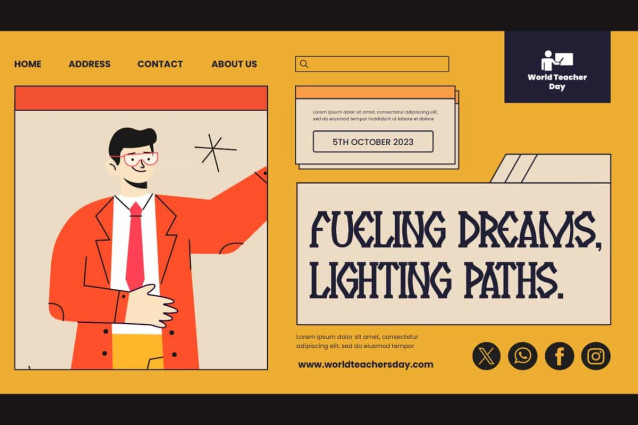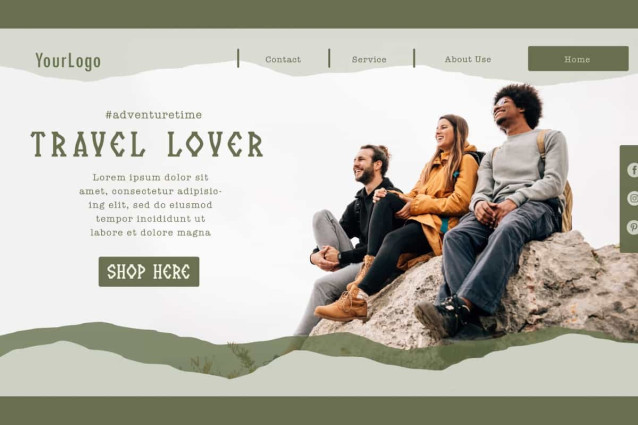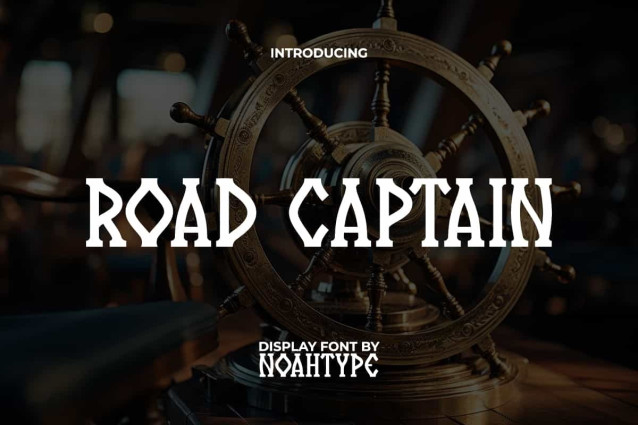
Road Captain Font
Road Captain Font is a sailor wavy ocean ship inspired font from NoahType Studio with unique and fancy characters style . The characters in this font are inspired by the pirate era, which has a very distinctive and prominent style. It will be perfect for any projects, such as label, poster, custom design, signage, invitation, brand image, stationery, cover, printing, product packaging, quotes, website, and many more!
Road Captain Font includes full set of ALL CAPS for Uppercase and Lowercase Basic Characters, Numerals, Punctuation, and Symbol. This special font will make your design standout and also a perfect choice for many industries, such as fashion, cafe, game, movie, accessories, advertising, art, cafe, event or festival, printing, publishing, etc.